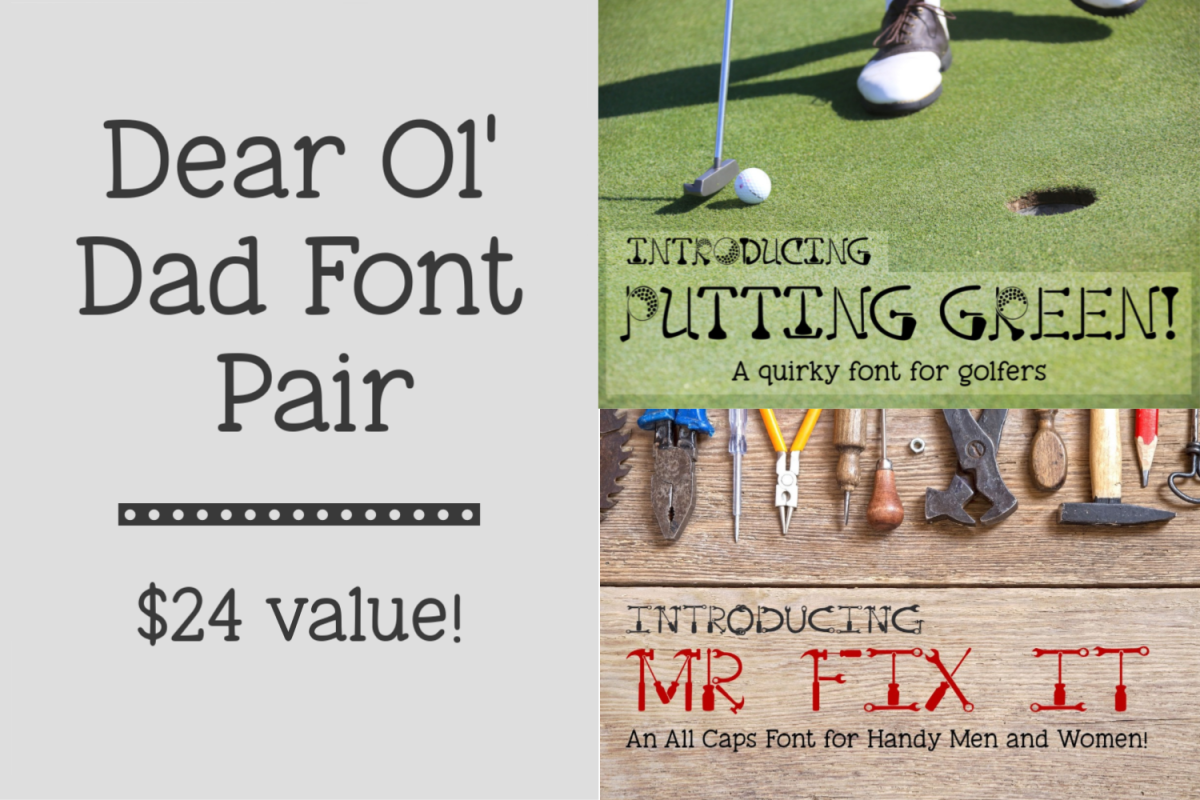
Dear Ol Dad Putting Green and Mr Fix It Font Pair
Save by buying them together! Created with crafters in mind, these fun, hand-drawn fonts feature minimal nodes for a smooth cutting experience and smaller file size.